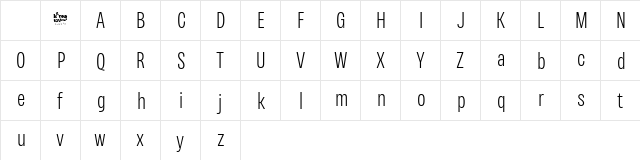
Variera DEMO ExtLt is a composed and adaptable typeface that performs quietly and consistently across a wide range of design contexts.
Pro Tip: Use Variera DEMO ExtLt in both headline and body roles to test its range before committing to a single application.